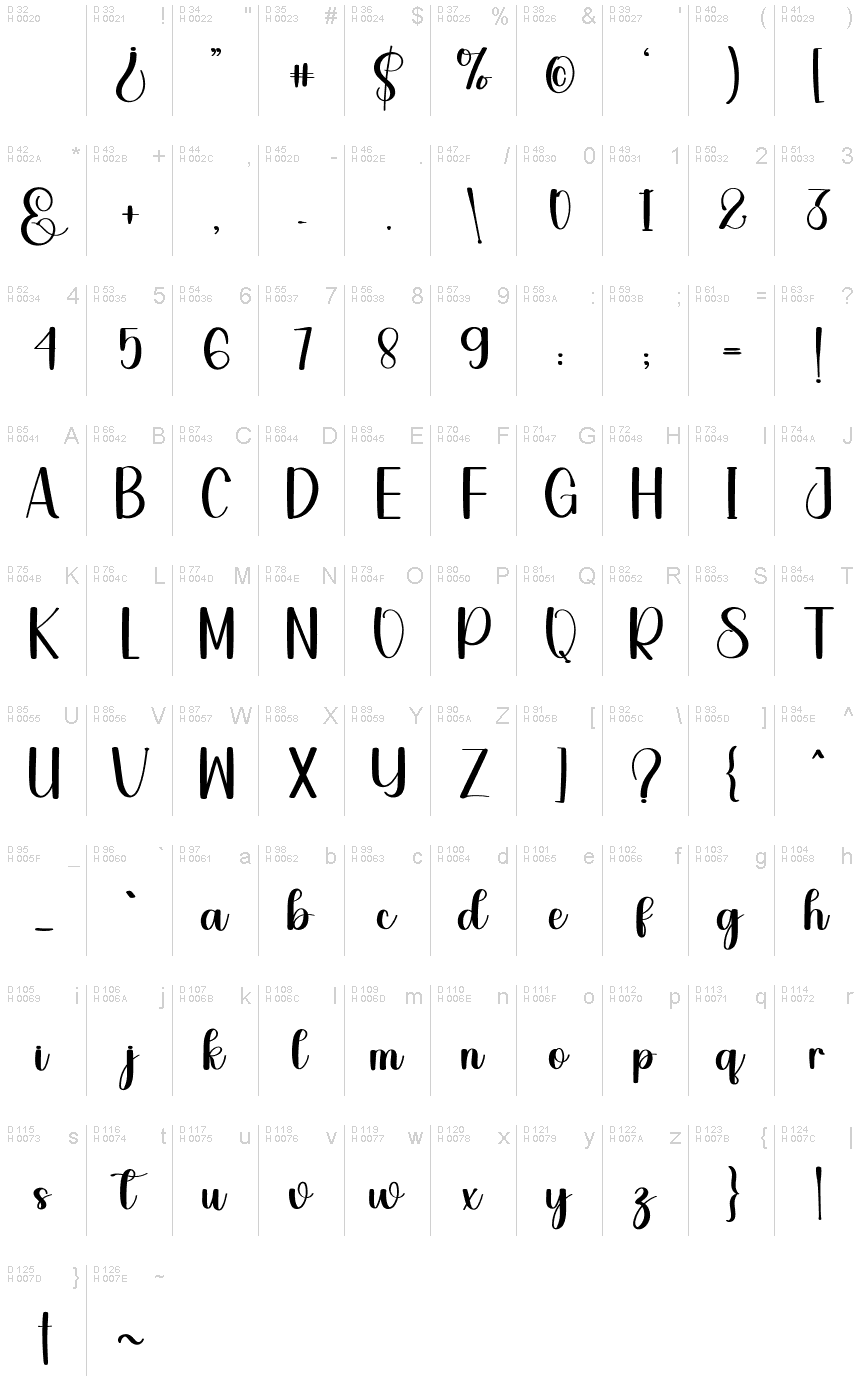
HELLO Holidays
HELLO Holidays, a delightful handwritten font designed by FreshtypeINK, brings a touch of warmth and playfulness to any project. With its organic flow and charming imperfections, this font is perfect for creating eye-catching holiday greetings, whimsical party invitations, or vibrant travel brochures. Its versatility makes it ideal for designing festive banners and posters that capture the spirit of joyful celebrations. Embrace the unique character of HELLO Holidays to infuse your designs with a sense of spontaneity and cheerfulness. Let your typography spread the holiday vibe across various creative projects with this enchanting handwritten font.